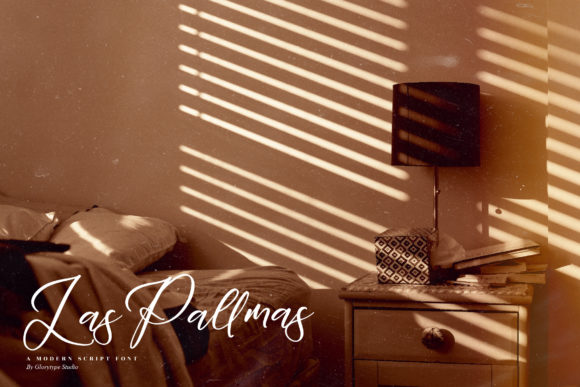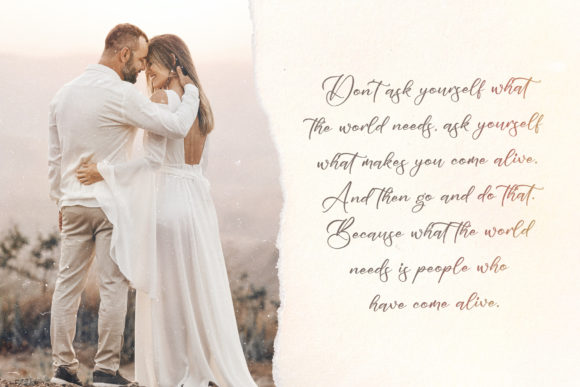
About Las Tallnas Font
Las Tallnas is a beautiful script font, suitable for any projects such as logos, branding projects, homeware designs, product packaging, mugs, quotes, posters, shopping bags, t-shirts, book covers, name cards, invitation cards, greeting cards, labels, photography, watermark, special events, and all your other lovely projects that need a beautiful script taste.